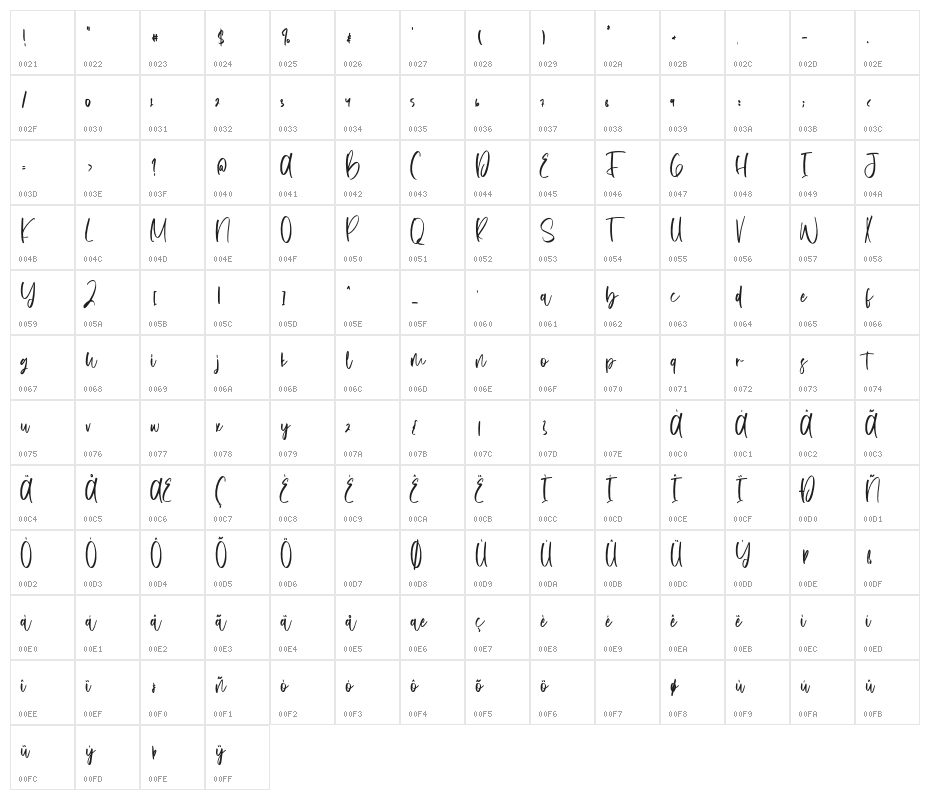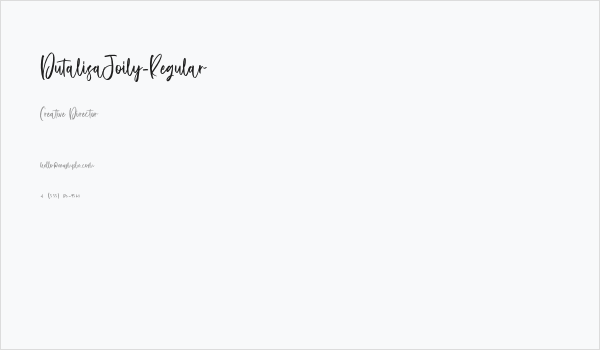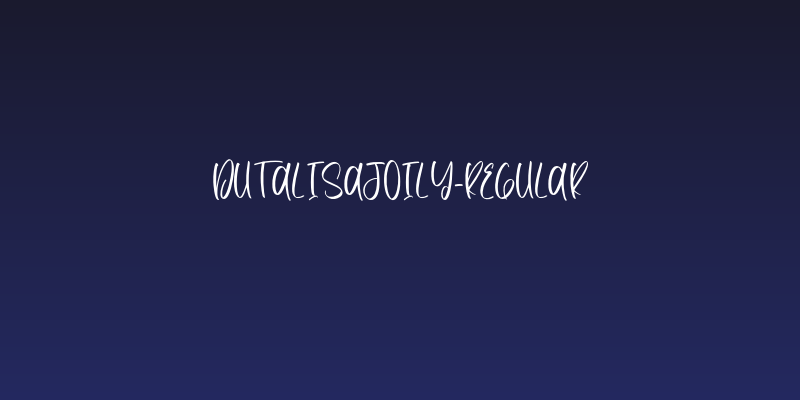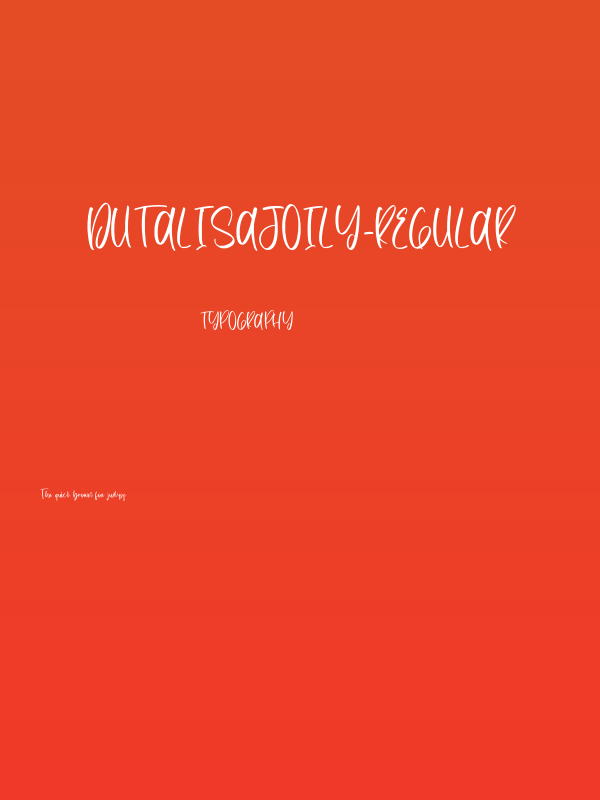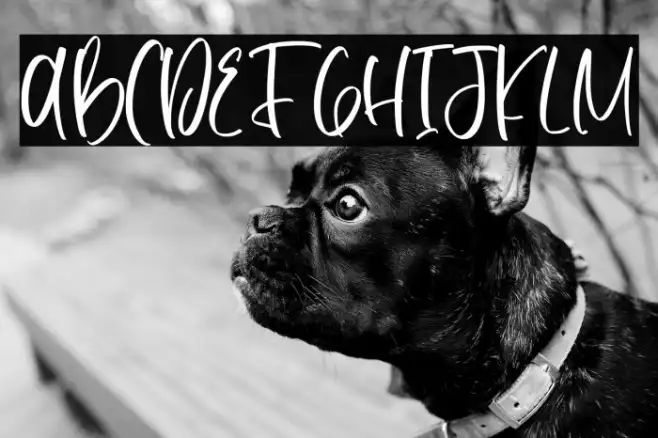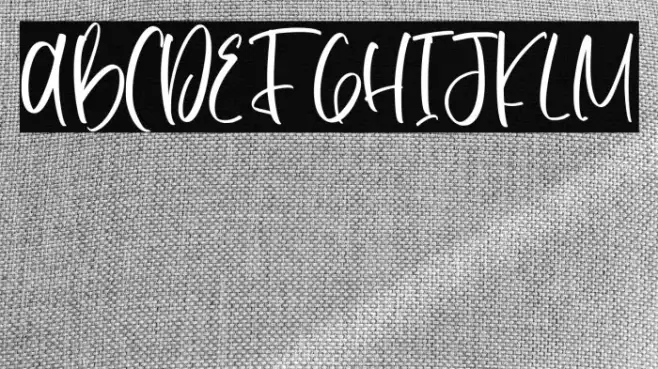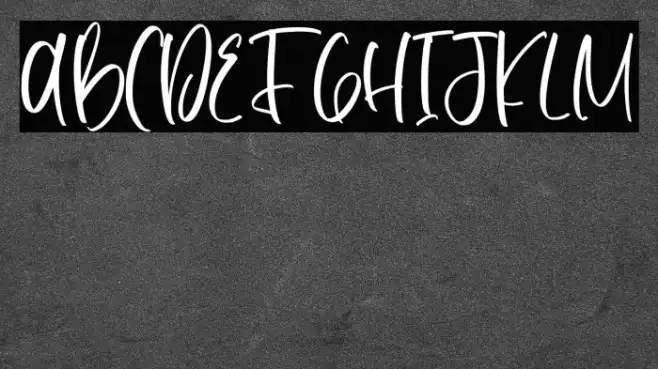
DutalisaJoily-Regular Font
DutalisaJoily-Regular Description
This font features a lively and expressive handwritten style, characterized by its fluid and dynamic strokes. The uppercase letters exhibit a playful yet elegant flair, with varying stroke widths that add a sense of movement and energy. The lowercase letters maintain a consistent flow, complementing the uppercase with their smooth curves and loops. Numbers and special characters are crafted with the same attention to detail, ensuring a cohesive look across all elements. The font's overall appearance is both modern and artistic, making it suitable for creative and informal applications.
| Proposed Projects | Ideal for greeting cards, invitations, branding, and social media graphics. |